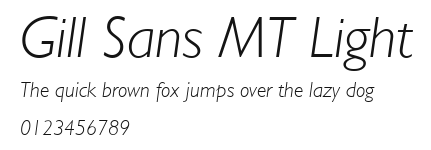
• Font Name: Gill Sans MT Light
• Font ID: Monotype - Gill Sans MT Light Italic
• Full Font Name: Gill Sans MT Light Italic
• Version: Version 2.01
• PostScript Name: GillSansMT-LightItalic
• Character Count: 243
• Designer: Eric Gill
• Manufacturer: Monotype Typography
About Gill Sans MT Light.ttf
Gill Sans MT Light.ttf is a modern, elegant sans-serif font designed for ultimate readability and visual harmony. Perfect for branding, headlines, web design, and print materials.